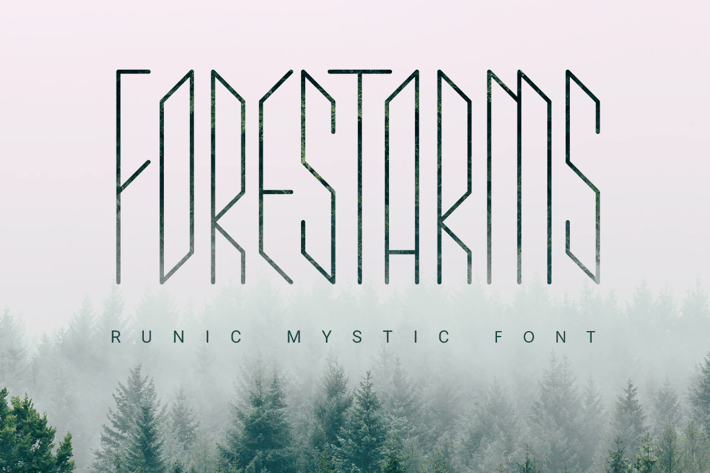
Forestarms | mystic font
Forestarms is a mystical sans serif font designed with thin tall straight letters without rounding or curves. The font has both case letters and numbers. Mysterious and strict it works great to make short titles. The font looks good both on a light and on a dark background.
- uppercase letters
- lowercase letters
- numbers